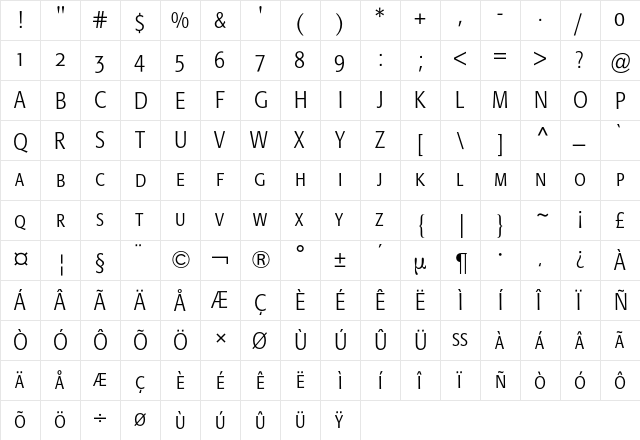
FormataCondensedExpertBQ Regular
Design Context for FormataCondensedExpertBQ Typeface
FormataCondensedExpertBQ offers clean, dependable letterforms without strong stylistic allegiance, making it a practical choice for designers who need flexibility. The condensed width makes it efficient for tight spaces without sacrificing legibility.